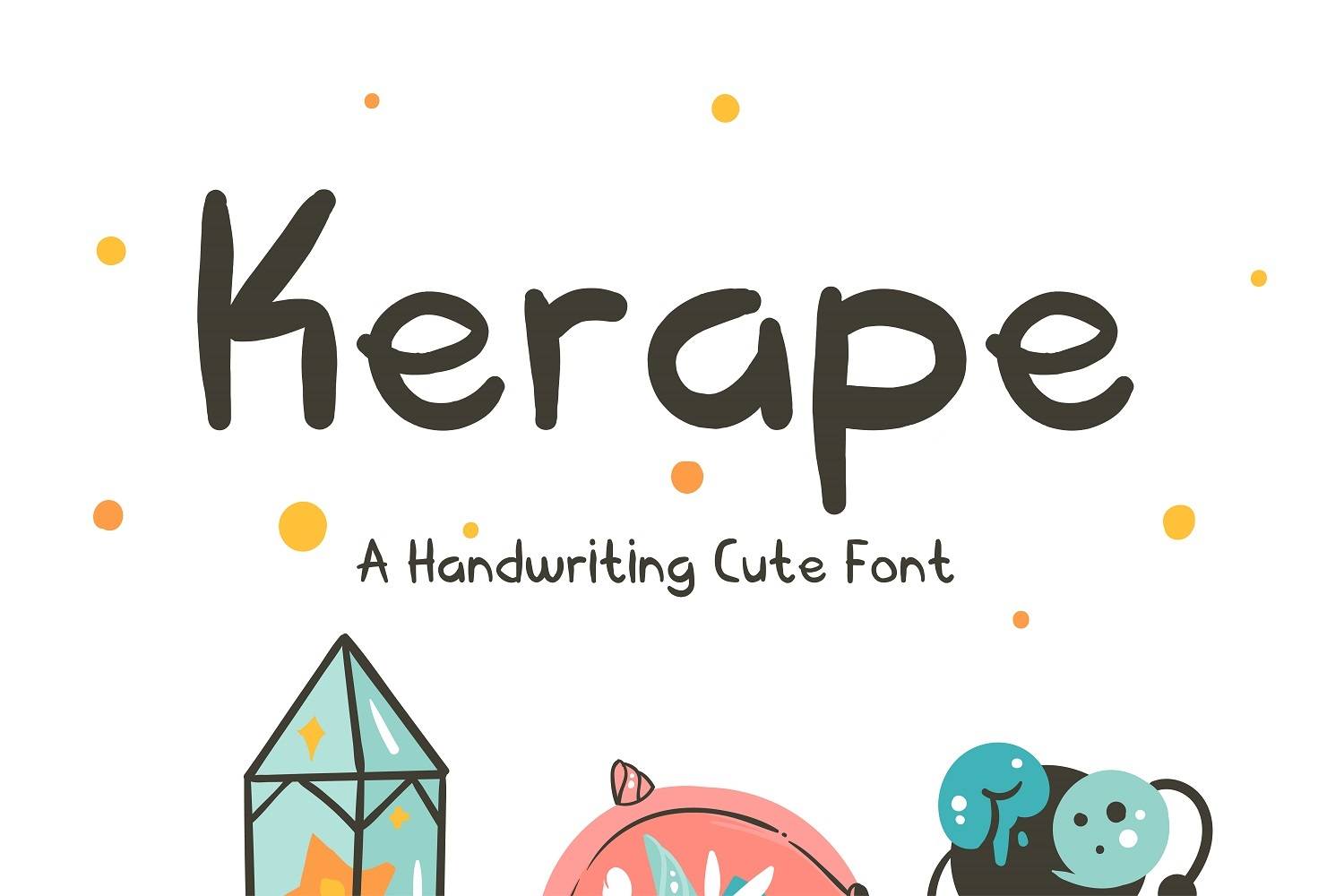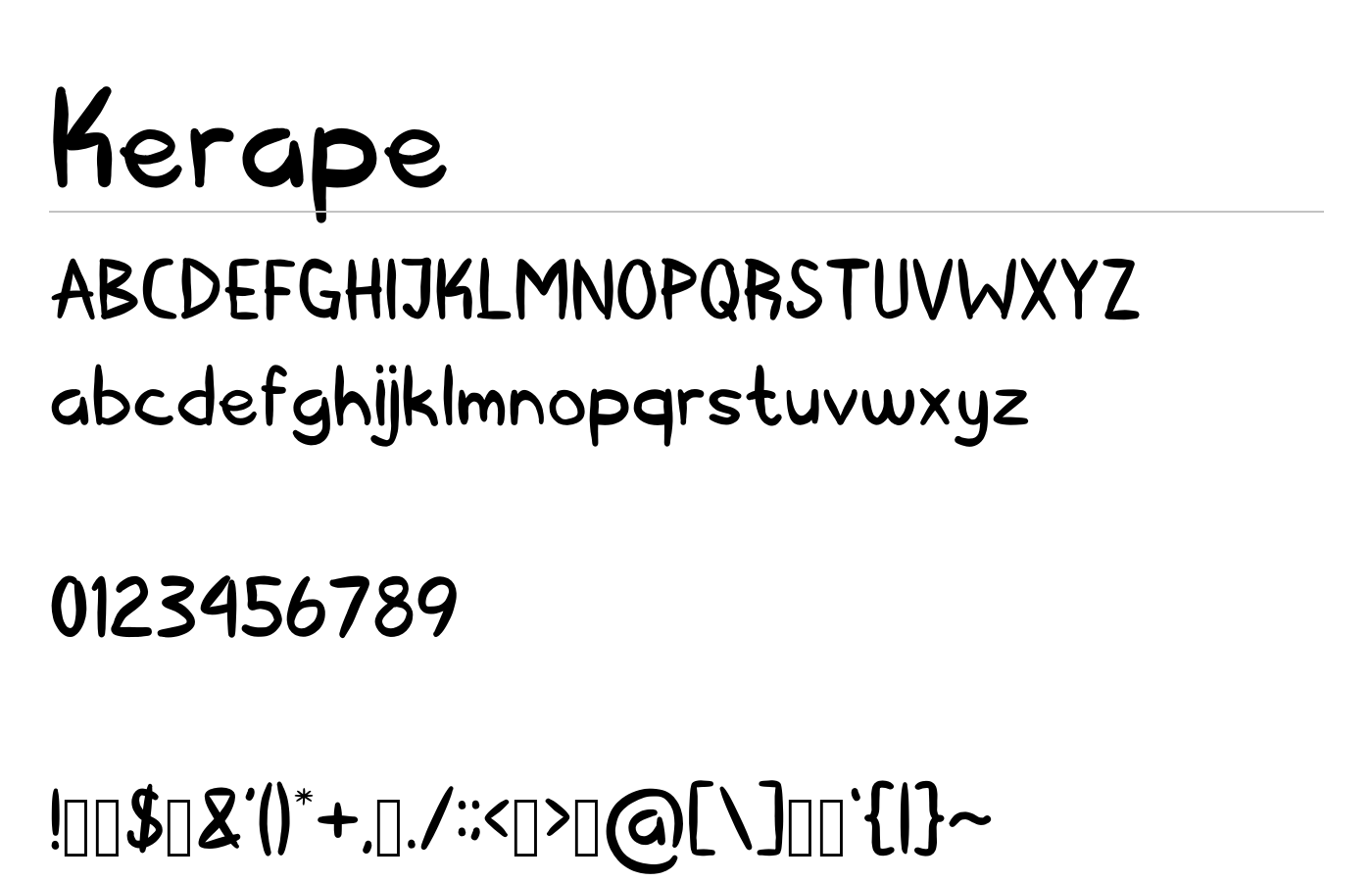
Kerape is a friendly and casual handwritten sans serif font with a playful and approachable feel. Its uneven strokes and rounded edges give it a relaxed, informal style perfect for creative, youthful designs like children’s books, greeting cards, or casual branding. The font works best in headlines or short texts where a personal, warm touch is desired.
Kerape Font
About Kerape Font
| Font family | Kerape Font |
| Designer | This font design by Haikal |